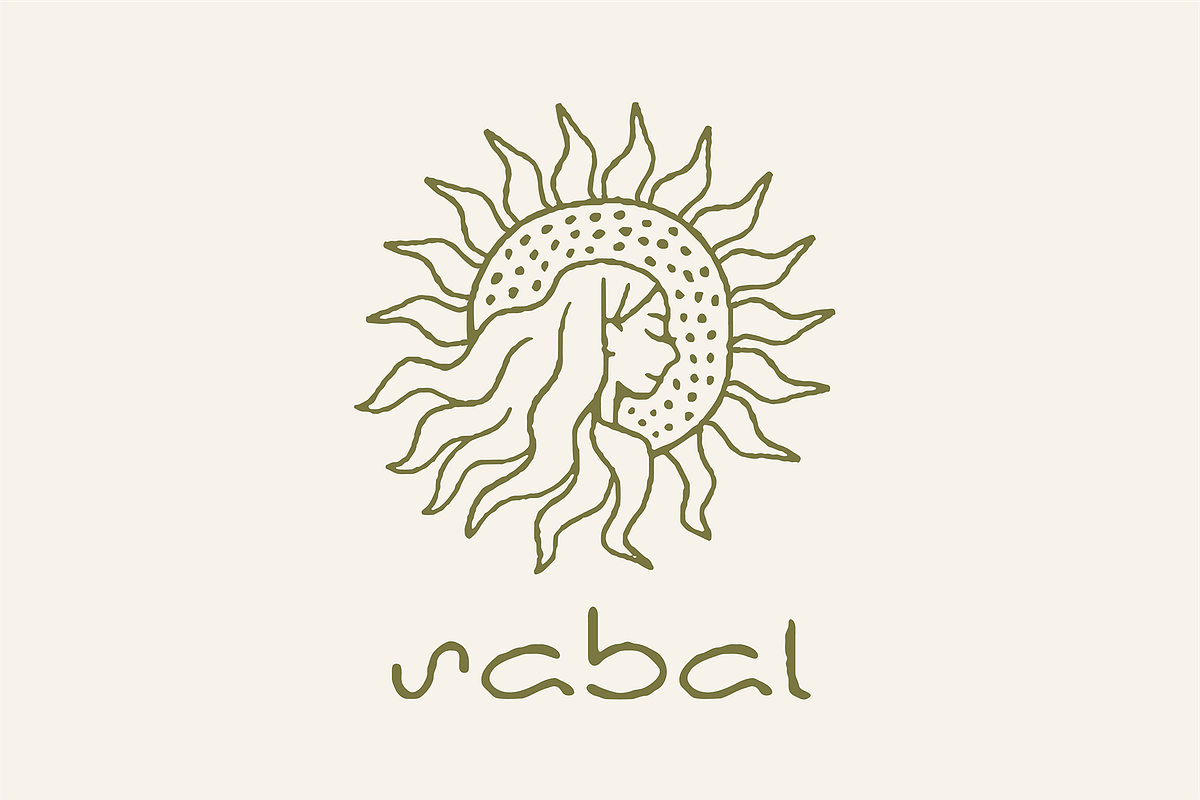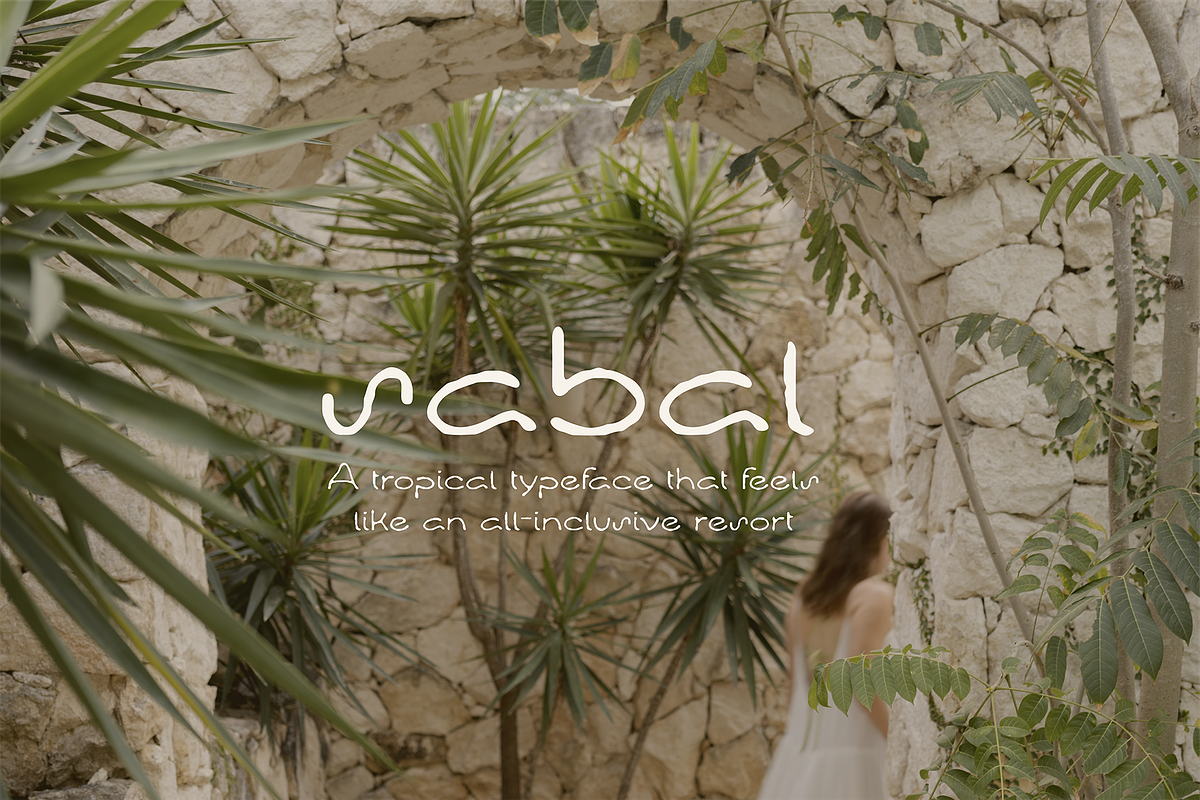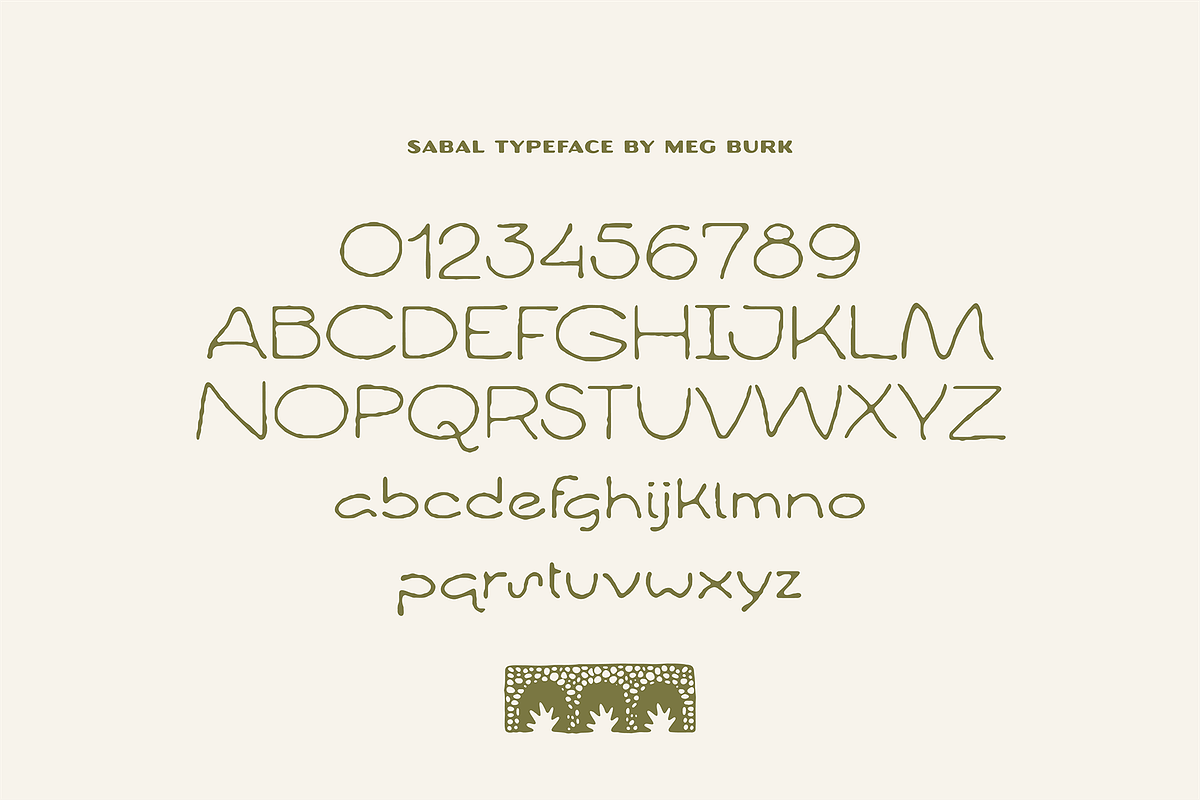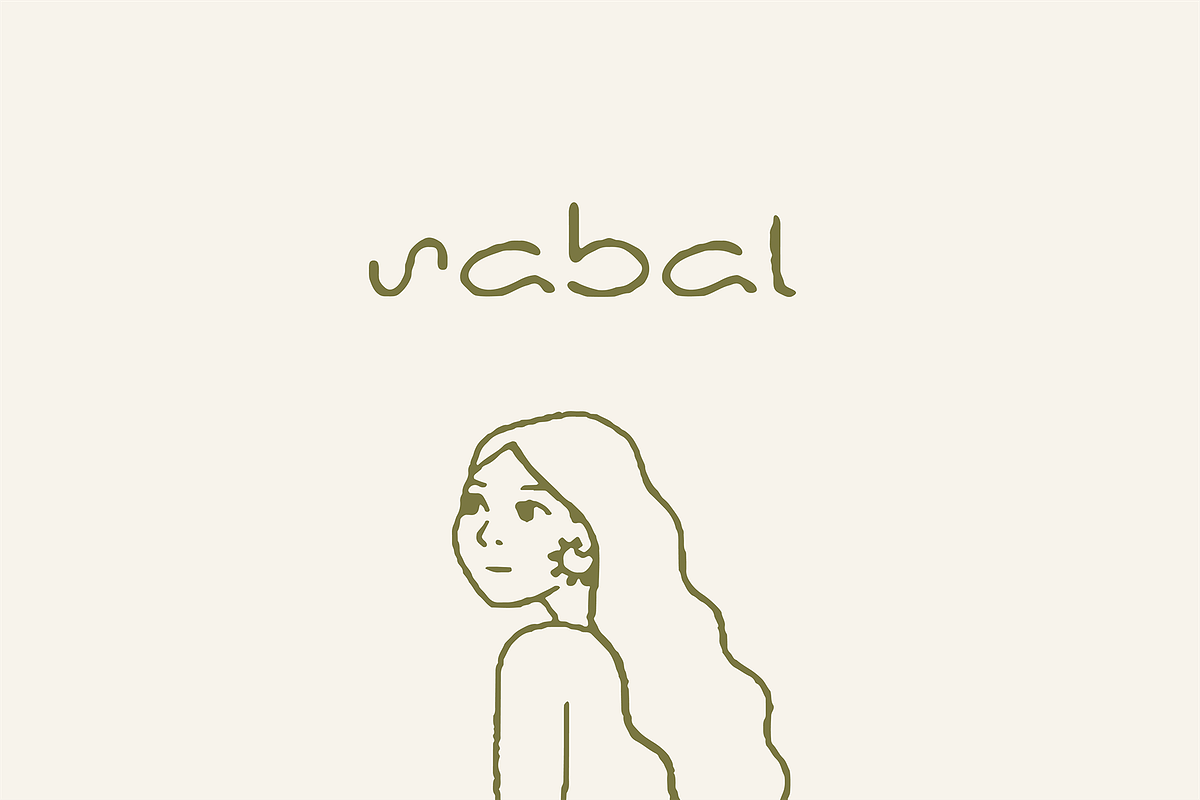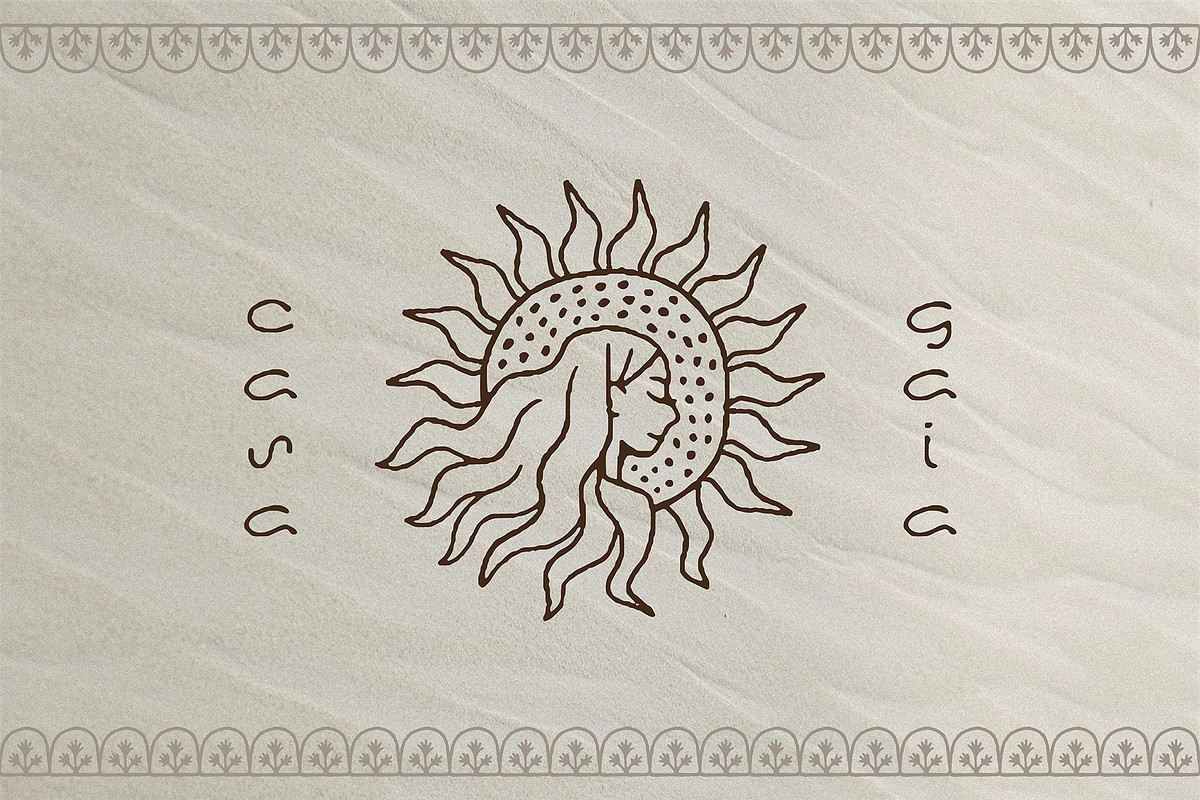
Sabal
An elevated sans with bold shapes and a jungle-inspired vibe.
For resorts, hotels, or anything you dream up, Sabal was created for logo designs - to welcome the viewer into a retreat or revival.
Includes the graphics you see in the promotional images, as well a few other extras in the font - type out "spiral" or "sun" to see some suggested alternates.